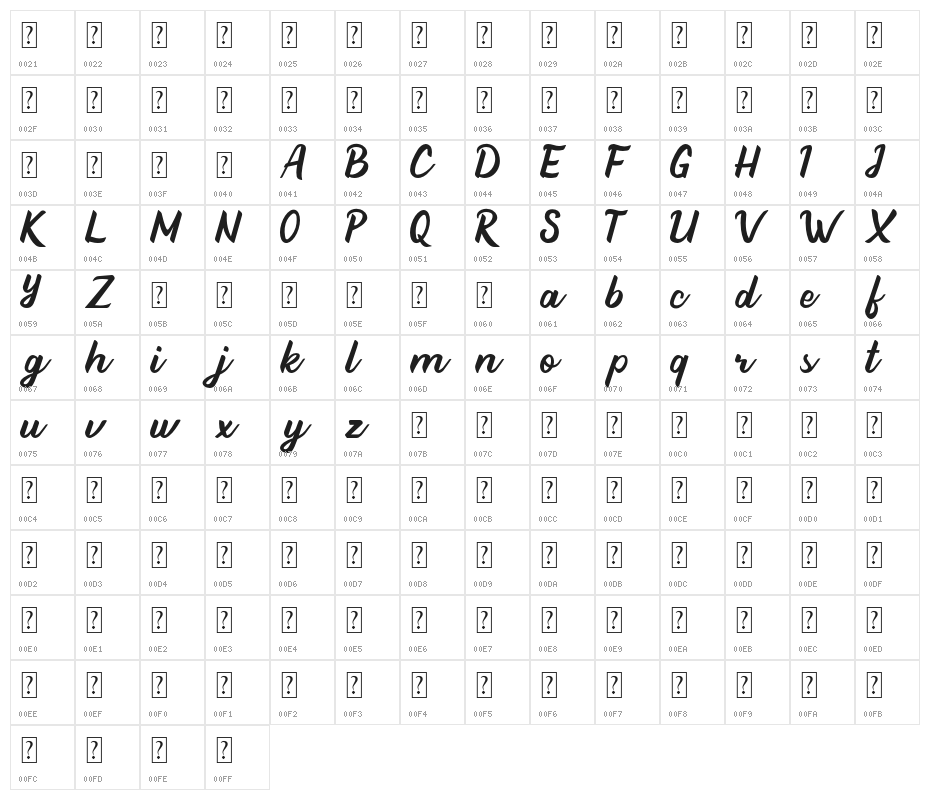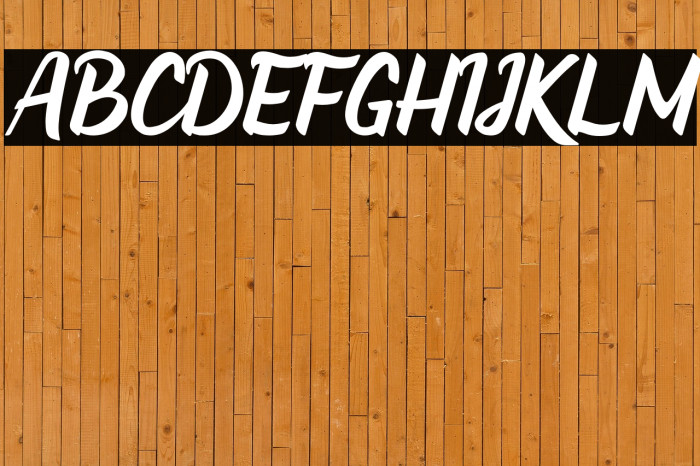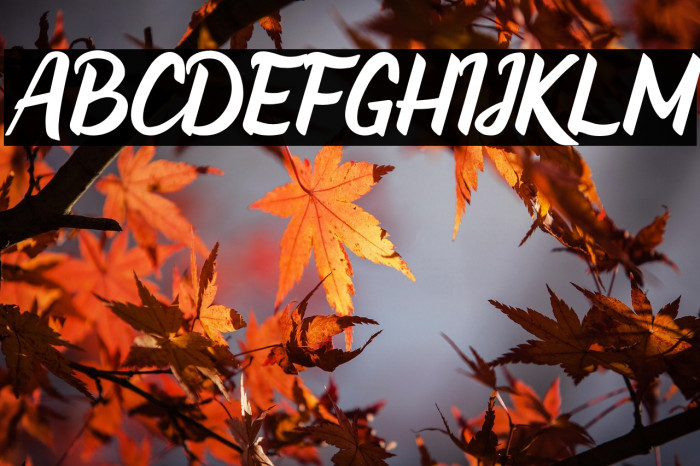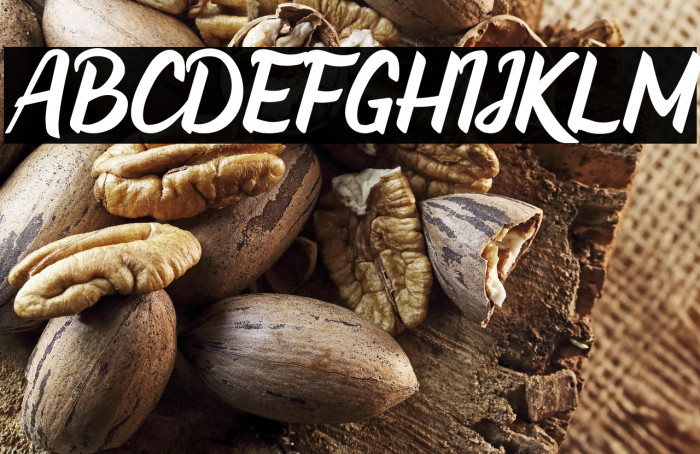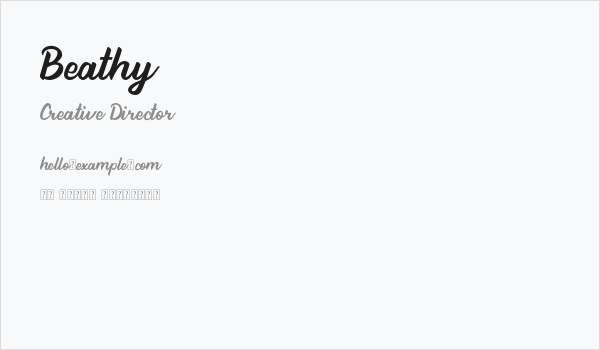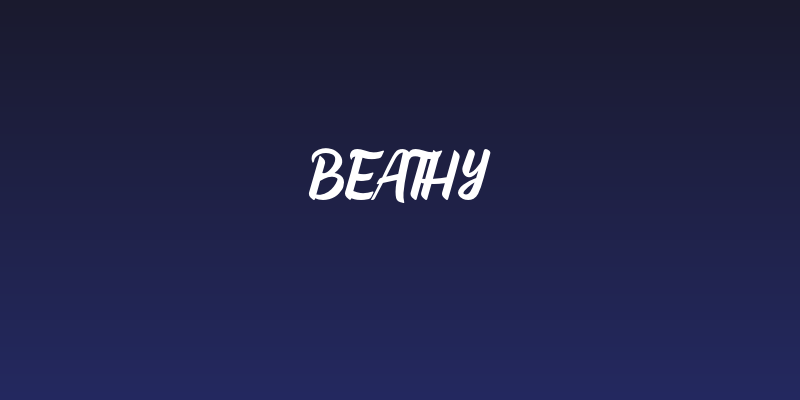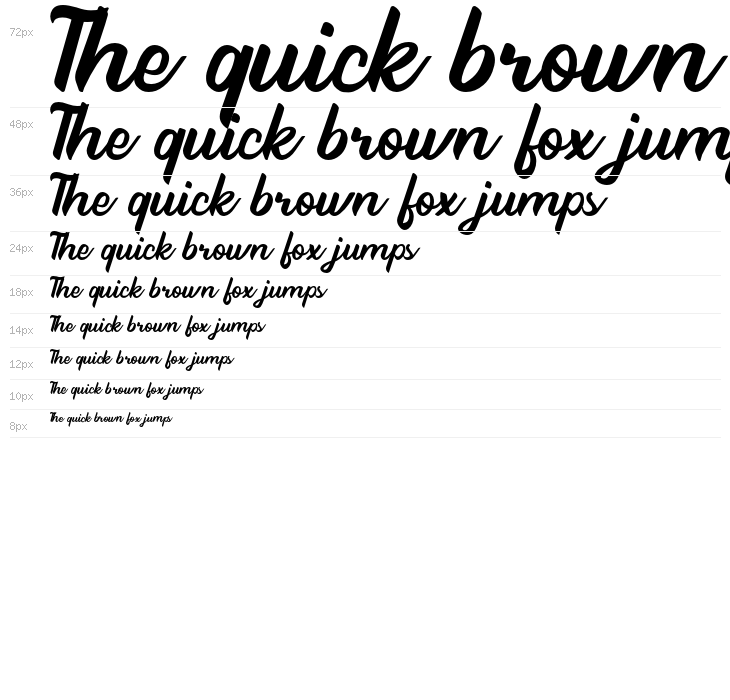
Beathy Font
Beathy Description
This font features a bold and expressive script style, characterized by its flowing and connected letterforms. The uppercase letters are dynamic and slightly slanted, giving a sense of movement and elegance. The lowercase letters maintain a consistent style, with smooth curves and a handwritten feel. The font's overall appearance is both modern and artistic, making it suitable for creative projects. The missing special characters suggest a focus on alphabetic and numeric design, emphasizing its use in decorative contexts.
| Proposed Projects | Ideal for branding, invitations, greeting cards, and artistic projects where a personal touch is desired. |